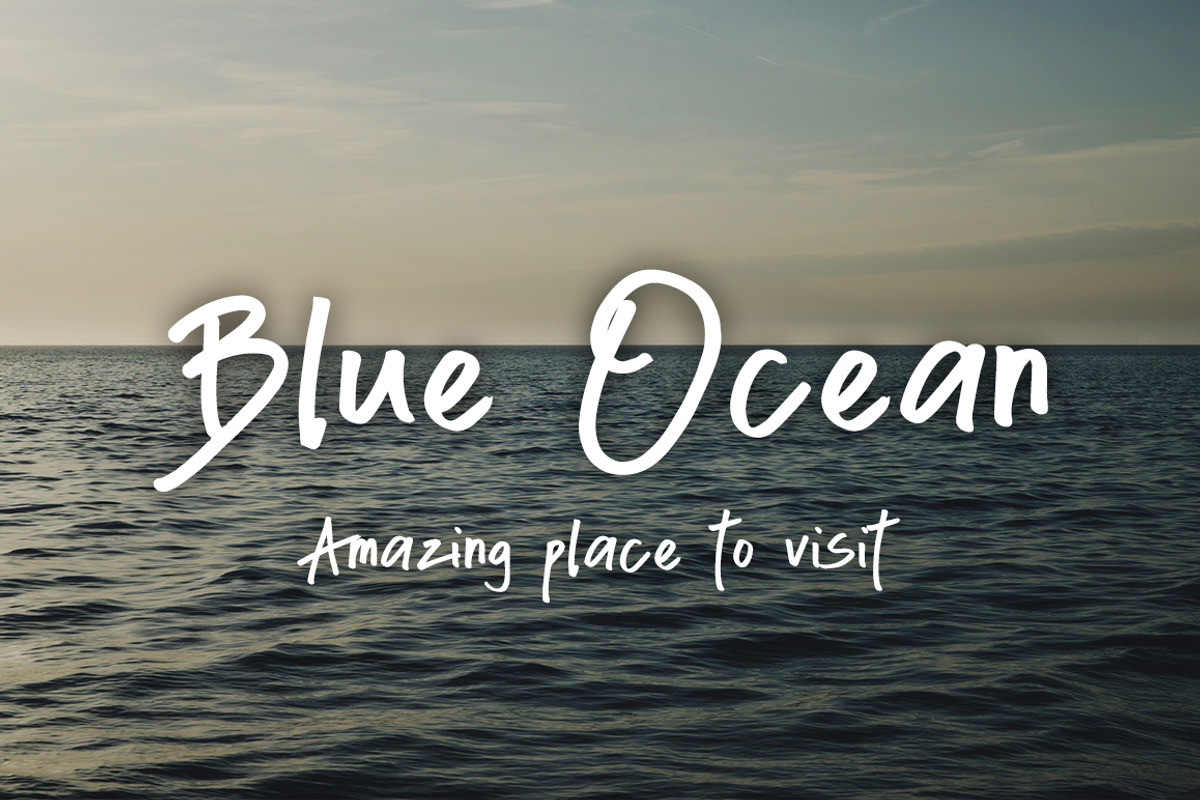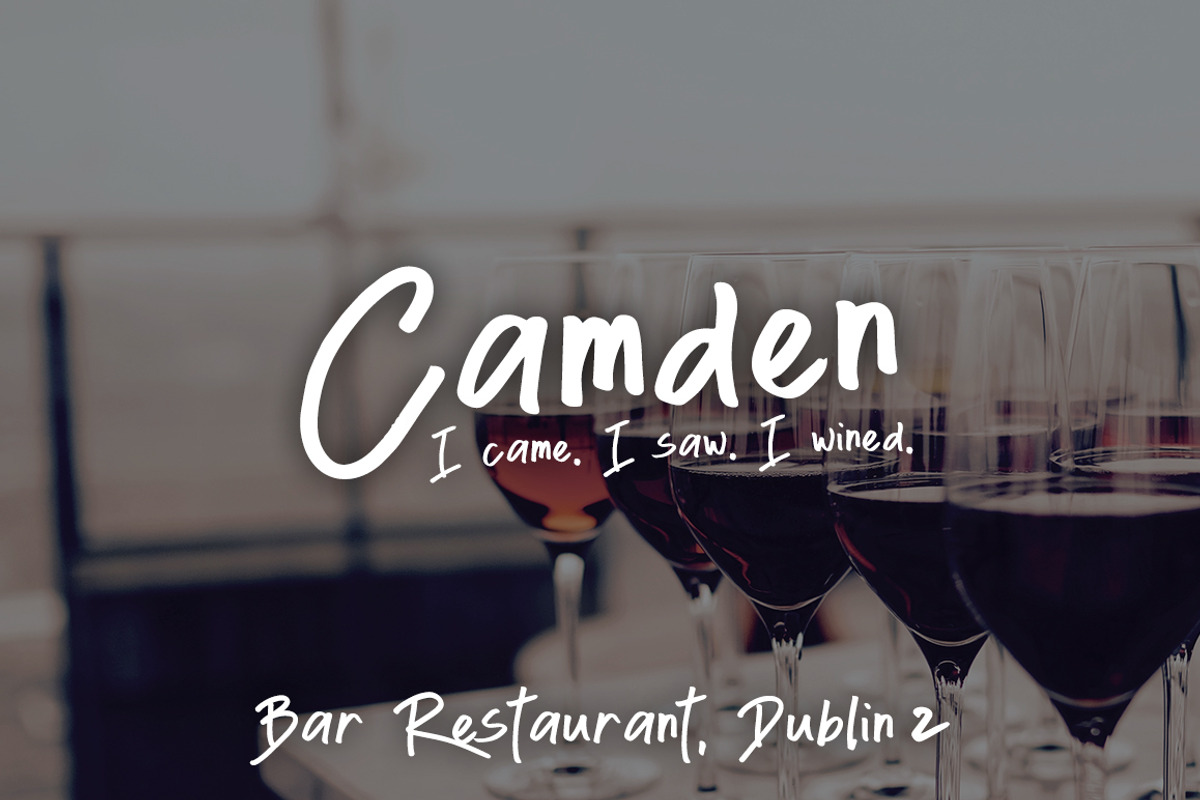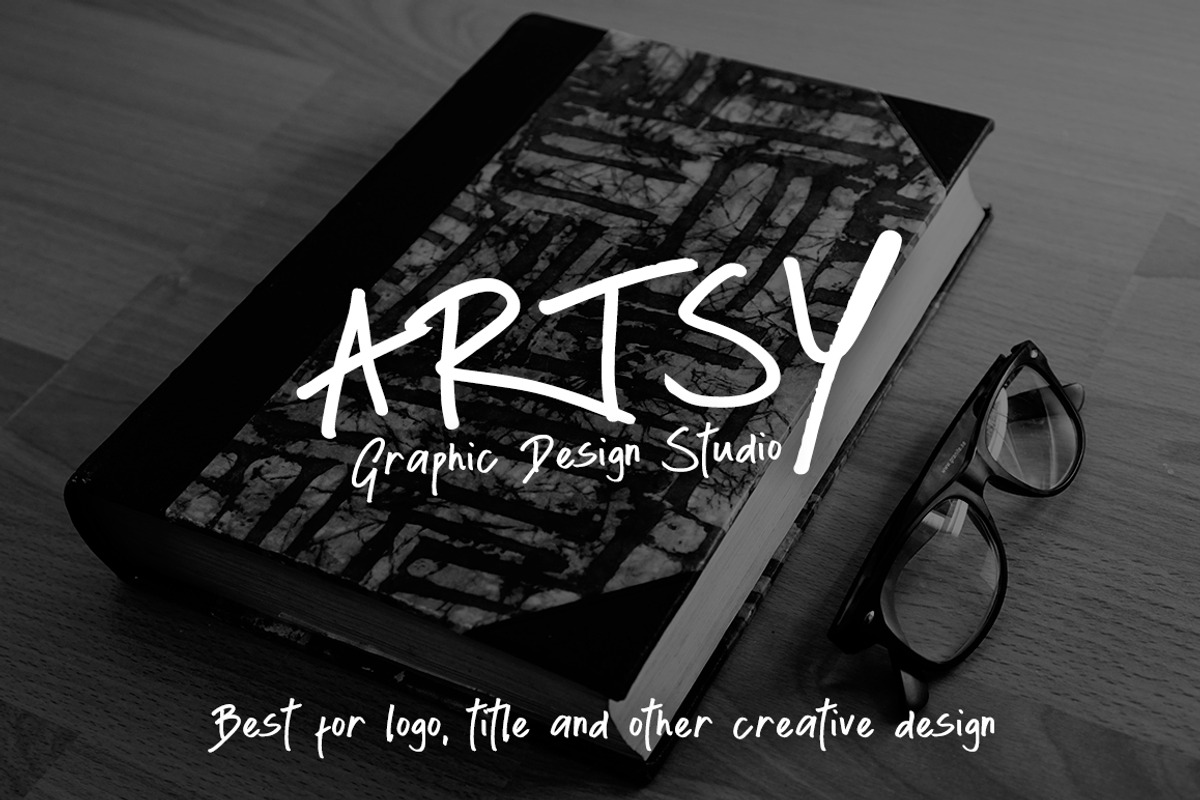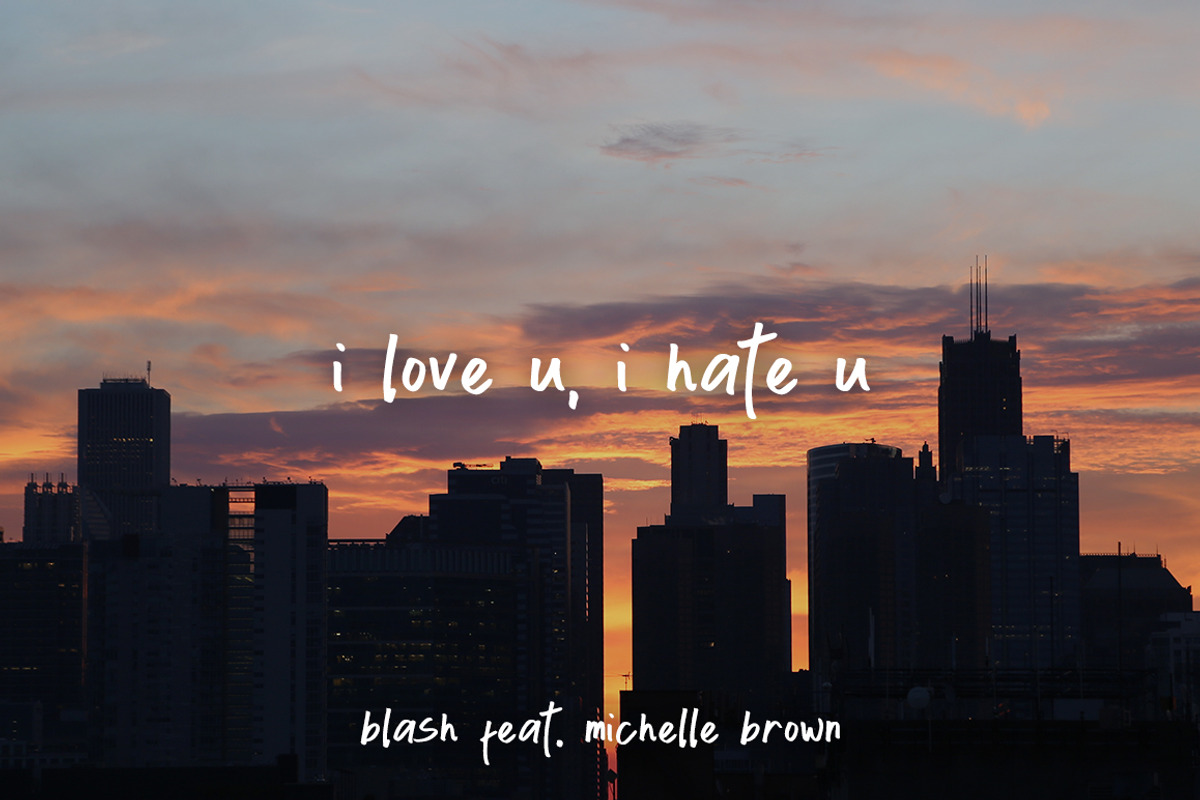
Valentia Handstylish Font
Valentia Handstylish Font by Alif Devan R. is a font selected for branding, posters, packaging, typography.
Why Valentia Handstylish Font is worth a look
Valentia Handstylish Font by Alif Devan R. fits naturally into Branding, posters, packaging, typography.